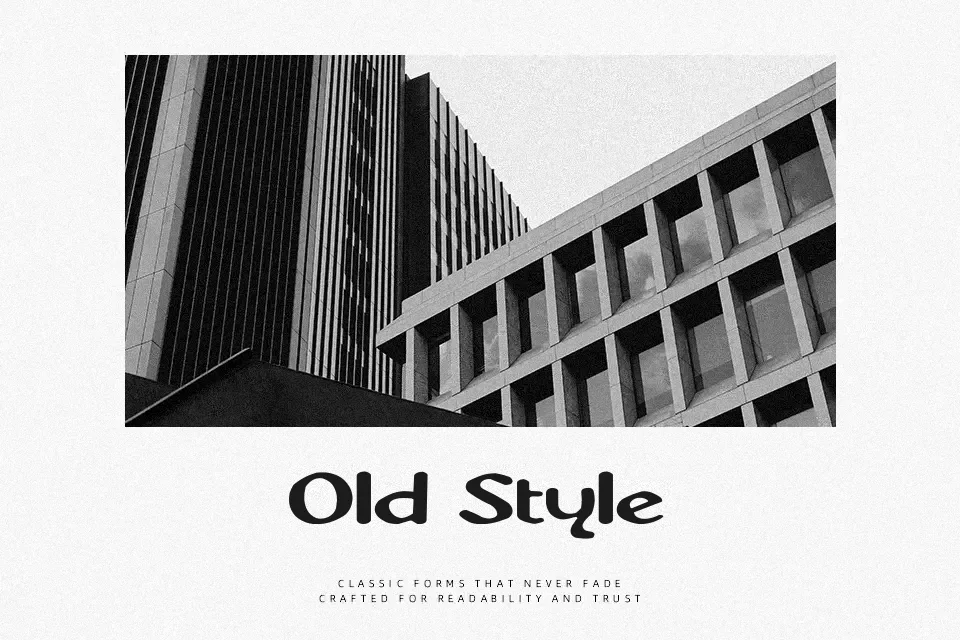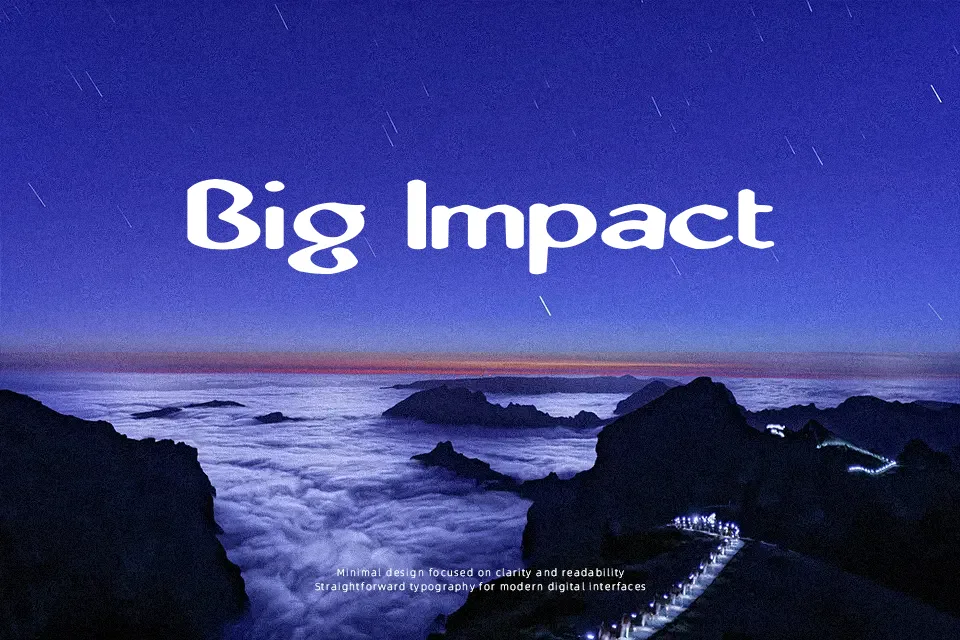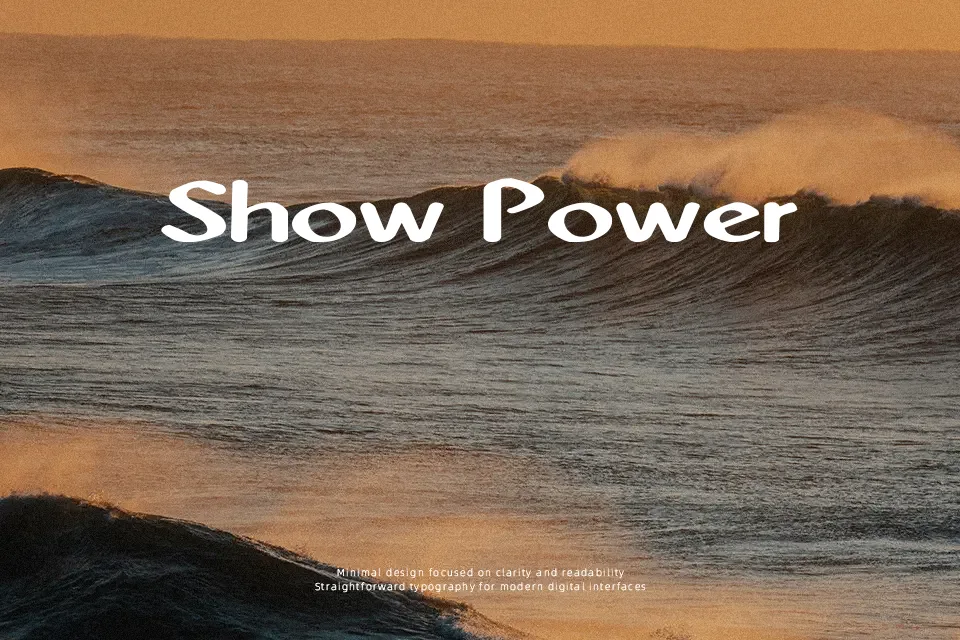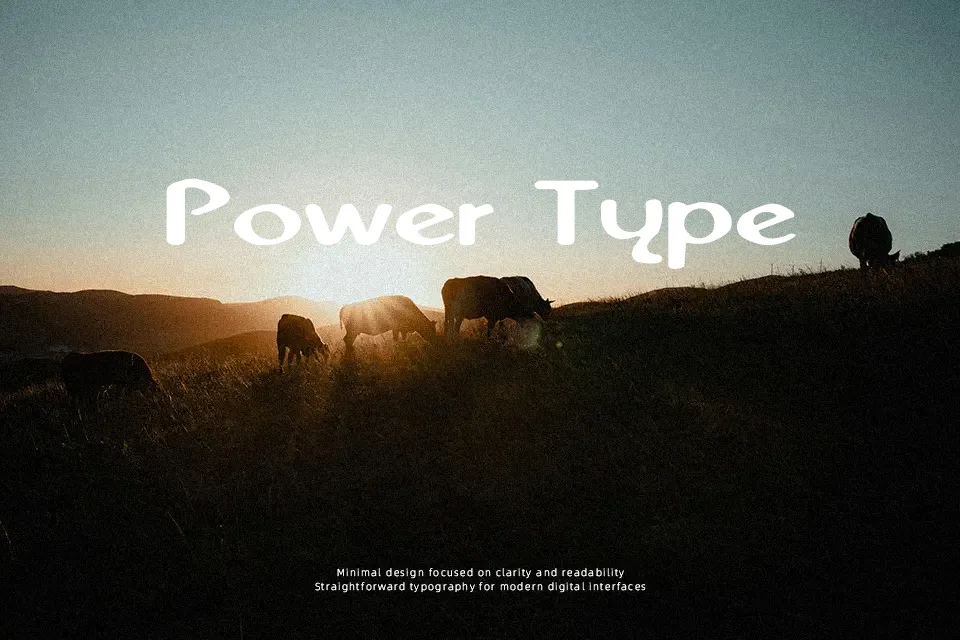
Abbey Font
Designed by unknown
Abbey carries a heavy, assertive presence — the kind of type that anchors a layout rather than blends into it. Its letterforms show strong stroke weight and a display-oriented structure that reads well at large sizes but resists being scaled down. The overall tone sits somewhere between dramatic and classic, giving it versatility across entertainment, music, and editorial headline use. Where it genuinely earns its keep is in short-burst text: album titles, event posters, or logo wordmarks that need a confident typographic voice. That said, readability drops noticeably in dense or small-scale settings, which limits its utility in body copy, captions, or interface labels. Anyone expecting versatility across long text formats will find it frustrating.
– Music album or band title headers
– Entertainment event posters and flyers
– Logo wordmarks for creative or artistic brands
– Editorial headline treatments in print layouts
– Body text or multi-line paragraph copy
– Small-size digital UI labels or navigation
– Corporate or formal business documents
– Projects requiring high legibility at reduced sizes